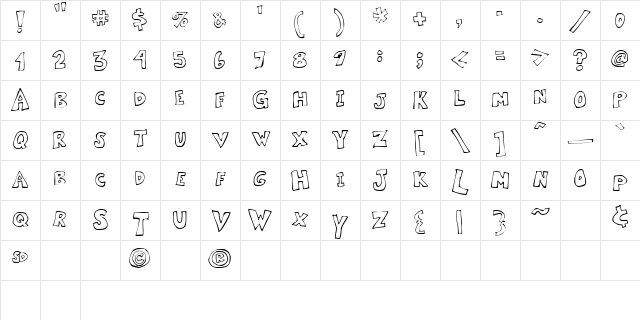
Kartoone Regular Free Font
Kartoone Regular
Design Context for Kartoone
Kartoone is a composed and adaptable typeface that performs quietly and consistently across a wide range of design contexts.